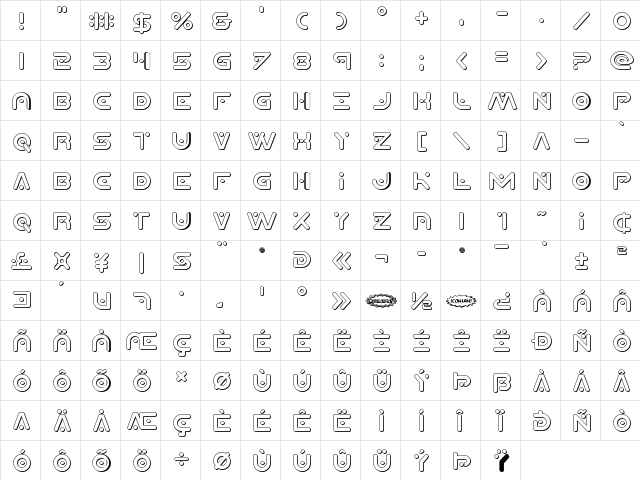
Planet X 3D Regular
Design Context for Planet X 3D Typeface
Planet X 3D is a composed and adaptable typeface that performs quietly and consistently across a wide range of design contexts.